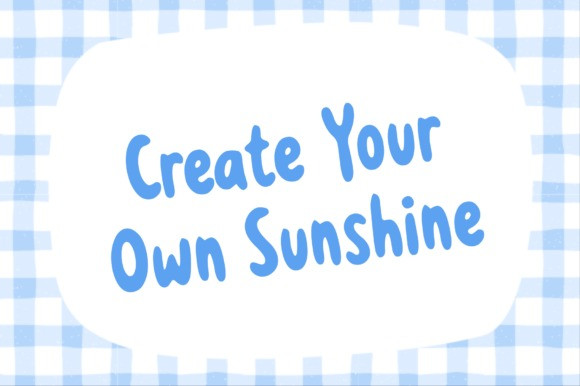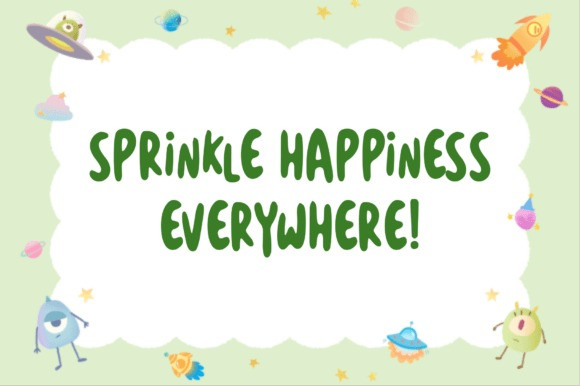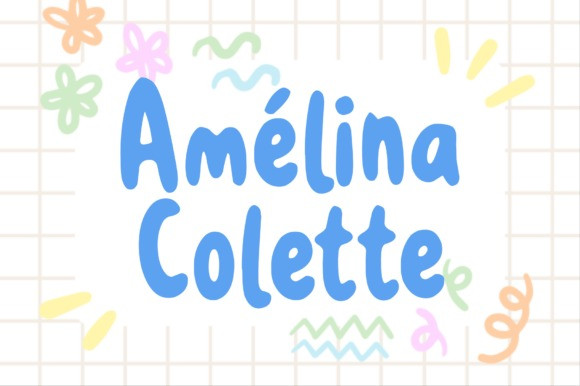
Amélina Colette Font
Amélina Colette Font is a charming display font featuring soft curves, rounded shapes, and a playful handcrafted style. Designed to bring joy and creativity to your projects, this font combines a friendly personality with excellent readability, making it perfect for both digital and print designs.
Its smooth, bubbly letterforms create a warm and approachable feel that works beautifully for children’s products, educational materials, cute branding, social media content, stationery, packaging, invitations, stickers, and creative crafts. Whether you’re designing for a playful brand or adding a touch of sweetness to your artwork, Amelina Colette delivers a delightful and memorable impression.
With its fun and cheerful appearance, Amelina Colette is the perfect choice for projects that need a cute, modern, and heartwarming touch.